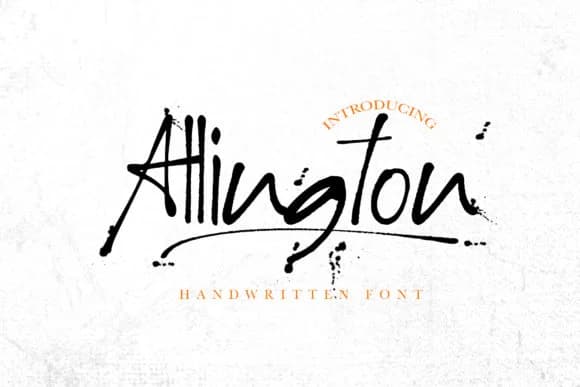
1 / 9About Allington Font
This font captures genuine handwriting energy without feeling forced or overdone. Allington, by Vz_Type, is a script typeface built for projects where personality and warmth matter. The swash alternates give you flexibility to adapt the letterforms across different contexts, making it work beautifully for wedding invitation suites, boutique greeting cards, Etsy product labels, and event programs that need genuine human touch.
Flowing letterforms particularly shine in product packaging for artisan goods, podcast cover designs, and social media graphics meant to feel handcrafted rather than slick and corporate. You'll find it equally at home on book jacket lettering, especially across romance or lifestyle publishing where authentic voice reads as absolutely essential. Its character adapts to both formal and informal settings, so you can adjust how you use it depending on your project's overall voice and intended mood. For maximum readability and visual impact, pair Allington with a clean sans-serif to handle body text and supporting information. This balance keeps the script's natural flow front and center while ensuring any longer passages remain legible and easy to read.
Allington Font is a script font that shines as a display or heading face. Pair it with a clean sans-serif or serif font for body text β the contrast creates a clear hierarchy while the two styles stay balanced and easy to read.
Allington Font
by Vz_Type